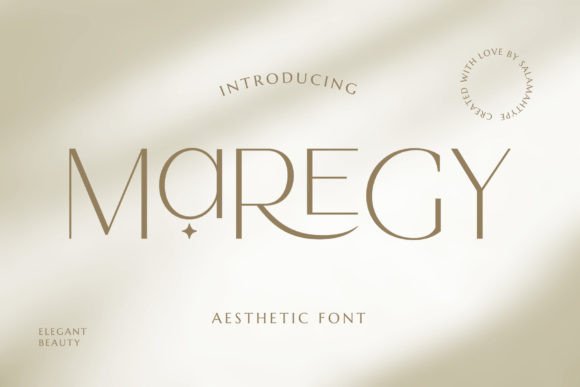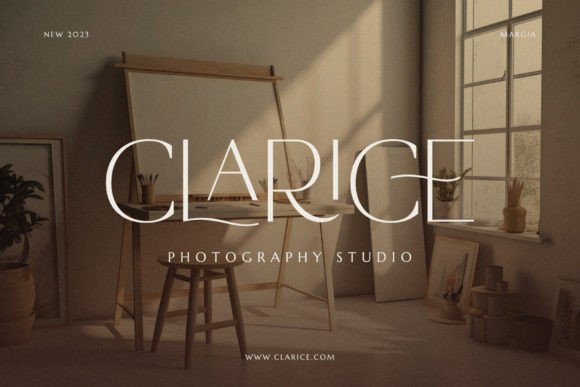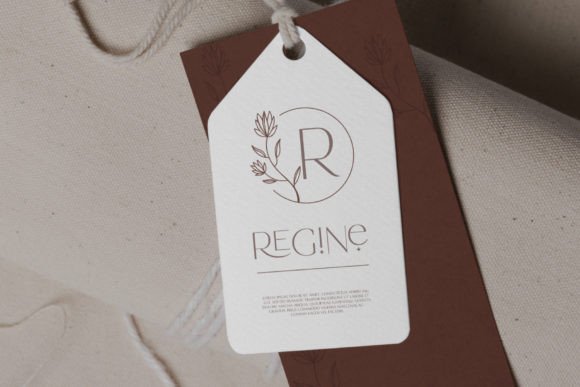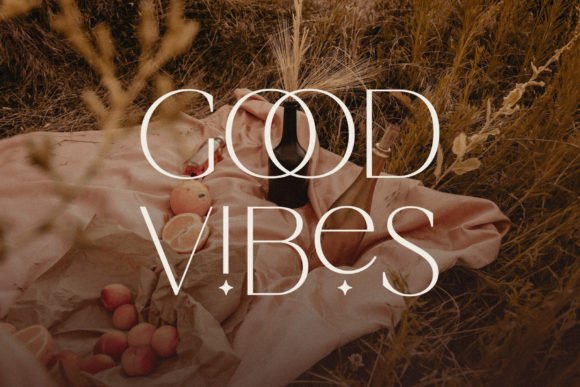
Maregy Font: Elegant Sans Serif for Modern Logo Design & Branding
About the Maregy Font
Let us introduce you to Maregy Font, where timeless design meets modern craftsmanship. MAREGY is a modern sans-serif font with an elegant style. This font is perfect for branding projects, logos, social media posts, advertisements, product packaging, wedding invitations, product design, labels, photography, watermarks, stationery, and more.
Maregy’s elegant modernity shines in headlines, short-form text, and branding applications where sophistication is key. It excels in logo design, packaging for premium products, and short, impactful marketing materials. However, its delicate forms are less suitable for body text or UI elements requiring high legibility in smaller sizes.
Consider pairing Maregy with a complementary serif like Playfair Display for a classic yet modern feel, or a geometric sans-serif like Montserrat for a balanced, contemporary aesthetic. A script font like Great Vibes could add a touch of handwritten elegance for specific applications.
Maregy projects a refined and confident personality, best suited for brands aiming for a sophisticated and upscale image. Avoid using it for projects requiring a playful or informal tone.
Maregy Font Usage Examples
Maregy Font Example